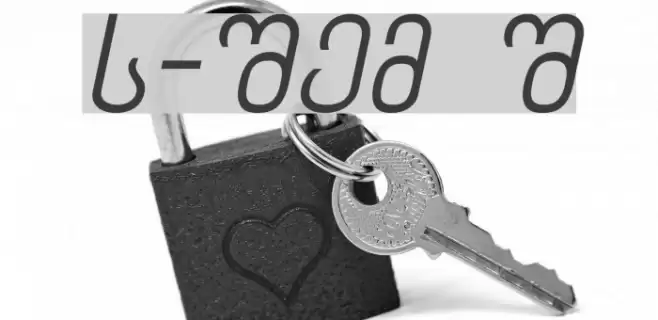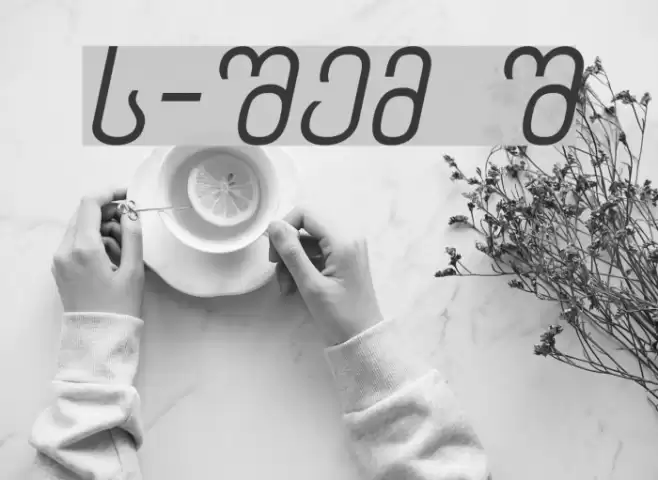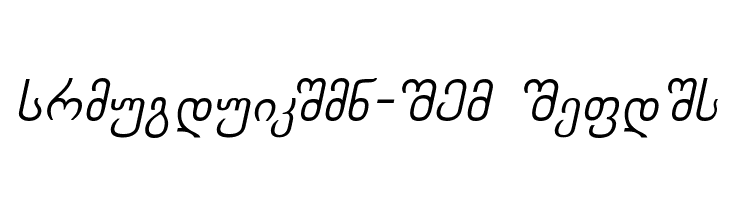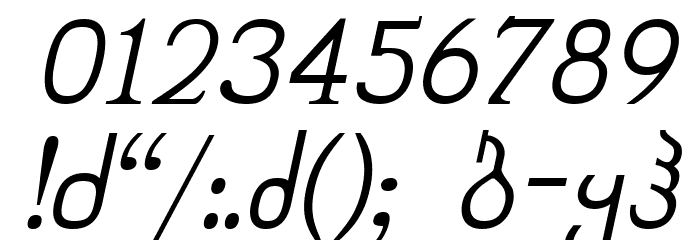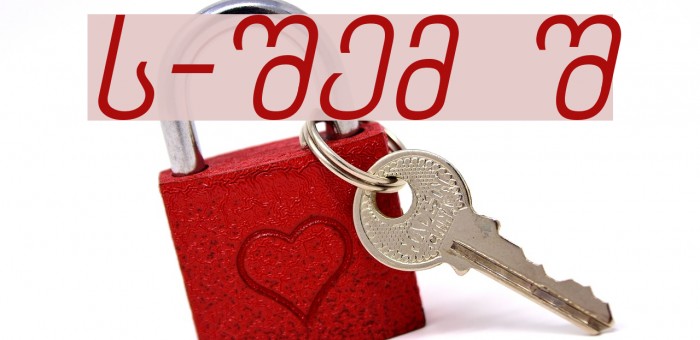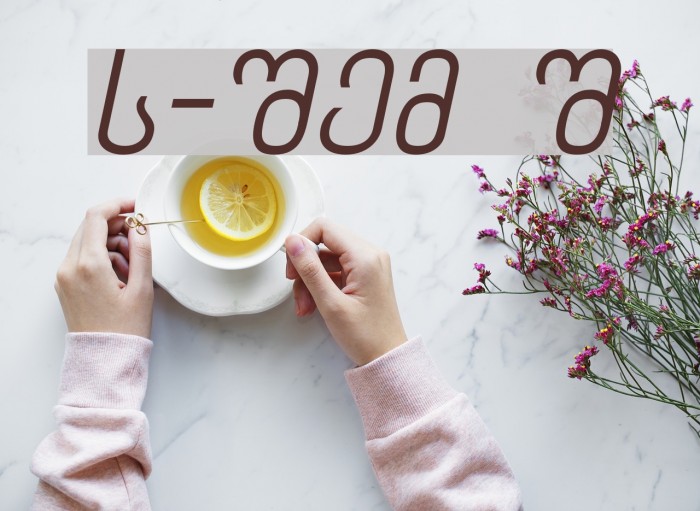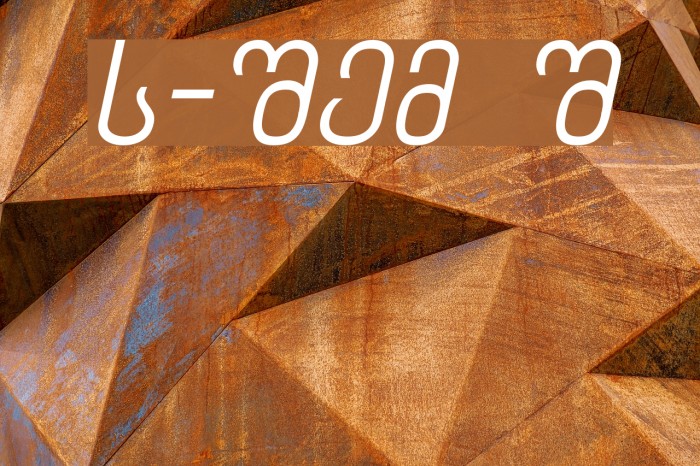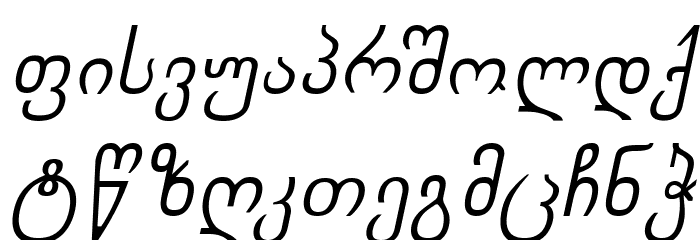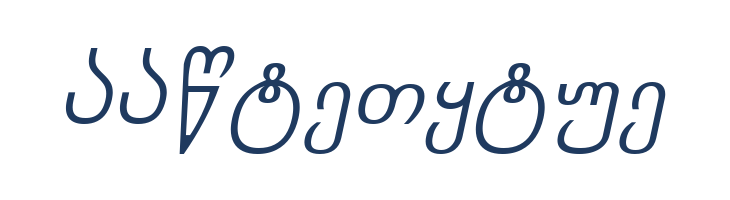
Chveulebrivy-ITV Italic Font
Chveulebrivy-ITV Italic Description
This font features a distinctive italic style with elegant curves and a flowing script-like appearance. The characters exhibit a smooth, continuous stroke that enhances readability while maintaining a unique aesthetic. The numerals are consistent with the overall style, providing a harmonious look across both letters and numbers. The special characters are designed to match the fluidity of the alphabet, ensuring a cohesive visual experience. This font's design is particularly suited for projects that require a touch of sophistication and elegance.
An elegant italic font with smooth, flowing strokes and a sophisticated style from Uncategorized fonts.
- Proposed Projects: Ideal for wedding invitations, elegant branding, high-end product packaging, and artistic posters.
- Overall Style: Elegant, Sophisticated
- Use Case: Logos, Invitations, Artistic Projects